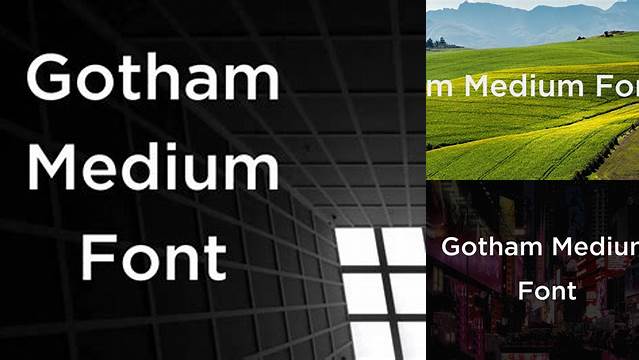
Let's dive into the world of fonts, specifically the ever-popular Gotham Medium, but with a twist – a Western flair! If you're on the hunt for that perfect blend of modern and rustic, you've come to the right place. This article will guide you through everything you need to know about finding and downloading Gotham Medium Western font for free, legally and safely. So, buckle up, font enthusiasts!
1. Understanding the Allure of Gotham Medium
Gotham Medium, guys, is more than just a font; it's a statement. Known for its clean, sans-serif design, it exudes a sense of modernity and readability that makes it a favorite for branding, websites, and print materials. Its versatility allows it to fit into various design aesthetics, from corporate to creative. But why is it so appealing? Well, its simplicity is its strength. The uniform stroke weight and geometric structure make it easy on the eyes, ensuring legibility even at smaller sizes. Plus, its wide availability and extensive character set mean it can handle almost any design task you throw at it. Its neutral appearance allows the content to shine, rather than overpowering it with excessive ornamentation. For designers, this means a reliable and adaptable tool that can be used across numerous projects. The font's design also lends itself well to digital platforms, where clarity is paramount. Its geometric shapes translate crisply on screens, avoiding the blurriness that can plague more intricate fonts. Gotham Medium is a true workhorse in the design world, providing a stable and attractive foundation for visual communication. It’s no wonder why so many brands and creatives turn to it as a go-to choice. In essence, it's a font that does its job exceptionally well, without drawing undue attention to itself, which is often the hallmark of excellent design.
2. What Makes a Font 'Western'?
Now, what exactly defines a “Western” font? Think old saloons, wanted posters, and the rugged charm of the Wild West. Western fonts typically feature strong, bold strokes, often with serifs that evoke a sense of history and tradition. They might include spurs, slabs, or distressed textures to add to the vintage feel. When we talk about a Gotham Medium Western font free download, we're looking for a variation that incorporates these Western elements while retaining the core readability and modern aesthetic of Gotham Medium. Combining these two styles can create a unique and eye-catching effect, perfect for projects that need a touch of both the old and the new. Imagine a tech startup with a Western-themed marketing campaign, or a modern restaurant wanting to evoke a sense of rustic charm. A Gotham Medium Western font could be the perfect solution. The challenge, however, is finding a version that is both well-designed and legally available for free. Many Western fonts are overly ornate or difficult to read, which defeats the purpose of using Gotham Medium in the first place. The ideal Western-inspired version would maintain Gotham's clarity while adding subtle Western details, such as slightly flared serifs or a subtly distressed texture. This balance is what makes a Western font truly effective, allowing it to convey a sense of history and character without sacrificing readability or modern appeal. Finding this balance is key to creating designs that are both visually striking and functionally sound.
5. Alternatives to Gotham Medium with a Western Vibe
Can't find a perfect Gotham Medium Western font free download? No worries! There are plenty of alternatives that capture the Western aesthetic while maintaining readability. Fonts like Arvo, Ranchers, and Playfair Display can give you a similar vibe. Arvo, for example, is a slab-serif font that provides a strong, sturdy feel, reminiscent of old Western signage. Ranchers, on the other hand, is a display font that embodies the spirit of the Wild West with its bold, decorative letterforms. Playfair Display offers a more elegant take on the Western style, with its high contrast and refined serifs. Experiment with different fonts to see what works best for your project. Consider pairing these fonts with other design elements, such as distressed textures, vintage illustrations, or sepia-toned color palettes, to further enhance the Western theme. Remember, the goal is to create a cohesive and visually appealing design that effectively communicates your message. Don't be afraid to try different combinations and approaches until you find the perfect fit. And don't forget to check the licensing terms of any fonts you use to ensure they are free for commercial use. By exploring these alternatives and incorporating them thoughtfully into your designs, you can achieve a Western-inspired look without compromising on readability or professionalism. This flexibility allows you to create unique and engaging designs that capture the essence of the Wild West while maintaining a modern sensibility. In the end, the key is to find the right balance between style and functionality.
6. Modifying Existing Fonts: A DIY Approach
If you're feeling adventurous, you can even try modifying an existing font to create your own Western-inspired version. This requires some technical skills and specialized software, but it can be a fun and rewarding project. Font editing software like FontForge or Glyphs allows you to adjust the letterforms, add serifs, and incorporate other Western elements. However, be sure to check the font's license before modifying it, as some licenses prohibit derivative works. If you're unsure, it's always best to contact the font designer or foundry for permission. Modifying a font can be a complex process, but it gives you complete control over the final result. You can customize every aspect of the font to perfectly match your vision, creating a truly unique and personalized typeface. Start by studying existing Western fonts to identify the key characteristics that define the style. Then, experiment with adding serifs, spurs, and other decorative elements to your chosen font. Consider using a distressed texture to give the font a vintage, weathered look. Remember to maintain the font's readability throughout the modification process. The goal is to enhance the Western aesthetic without sacrificing clarity or legibility. With patience and practice, you can create a custom Western font that is both visually appealing and functionally sound. This DIY approach allows you to express your creativity and develop a deeper understanding of typography. Ultimately, modifying fonts can be a valuable skill for any designer or font enthusiast.
7. The Importance of Readability in Font Choice
No matter how cool a font looks, readability should always be a top priority. A font that's difficult to read will frustrate your audience and undermine your message. When choosing a Gotham Medium Western font free download or any other font, consider factors like letter spacing, stroke weight, and contrast. A font with good readability will have ample space between letters and words, allowing the eye to easily distinguish each character. The stroke weight should be balanced, neither too thin nor too thick, to ensure clarity. And the contrast between the font and the background should be sufficient to prevent eye strain. Remember, your goal is to communicate effectively, not to show off your design skills. Choose a font that supports your message, rather than detracting from it. A readable font will help your audience engage with your content and understand your message more easily. This is particularly important for websites and other digital platforms, where users have a limited attention span. Make sure your font is legible on different screen sizes and resolutions. Test your font choices on various devices to ensure they look good across the board. By prioritizing readability, you can create a positive user experience and maximize the impact of your message. Ultimately, a readable font is a key ingredient in effective communication and successful design.
8. Using Font Pairing to Enhance Design
Font pairing is the art of combining two or more fonts to create a harmonious and visually appealing design. When using a Western-inspired font, consider pairing it with a clean, sans-serif font like the original Gotham Medium to balance the rustic aesthetic. A good font pairing will create contrast and hierarchy, guiding the viewer's eye and enhancing the overall design. The key is to choose fonts that complement each other, rather than compete. Look for fonts with similar x-heights and stroke weights to ensure a cohesive look. Consider using one font for headings and another for body text to create visual interest. Experiment with different combinations until you find a pairing that works well together. Online tools like FontPair and Typewolf can help you discover popular and effective font pairings. Remember, font pairing is not an exact science, but it is an important skill for any designer. By mastering the art of font pairing, you can create designs that are both visually stunning and functionally sound. A well-chosen font pairing can elevate your design and make it more engaging and memorable. So, take the time to experiment and explore different combinations until you find the perfect pairing for your project.
9. The Psychological Impact of Font Choices
Fonts have a subtle but powerful psychological impact on viewers. A Western font, for example, can evoke feelings of nostalgia, adventure, and ruggedness. The choice of font can influence how your message is perceived and remembered. Consider the emotions and associations you want to evoke when choosing a font. A serif font, like those often used in Western designs, can convey a sense of tradition and authority. A sans-serif font, on the other hand, can project a more modern and approachable image. Think about your target audience and the message you want to convey. Choose a font that aligns with your brand identity and resonates with your audience. Research has shown that different fonts can influence mood, attention, and even purchasing decisions. So, don't underestimate the psychological impact of your font choices. Take the time to consider the emotions and associations that different fonts evoke. By understanding the psychological impact of fonts, you can make more informed design decisions and create more effective communication.
10. Exploring Serif vs. Sans-Serif in Western Design
In the realm of Western design, the choice between serif and sans-serif fonts can significantly impact the overall aesthetic. Serif fonts, with their decorative strokes, often evoke a sense of tradition and history, aligning well with the vintage feel of the Wild West. Sans-serif fonts, known for their clean and modern appearance, can offer a contemporary twist on the Western theme. When seeking a Gotham Medium Western font free download, consider how the absence or presence of serifs contributes to the desired effect. A serif version might emphasize the rugged, time-worn aspect, while a sans-serif variation could bring a modern, minimalist touch. Ultimately, the decision depends on the specific project and the message it aims to convey. Experimenting with both serif and sans-serif options can reveal which best captures the essence of the design. The key is to strike a balance between authenticity and readability, ensuring the chosen font complements the overall visual narrative. Whether opting for the classic charm of serifs or the streamlined simplicity of sans-serifs, the font should enhance the design's impact and effectively communicate its intended message.
11. Finding Distressed Font Variations
Distressed fonts, with their weathered and worn appearance, perfectly capture the rugged spirit of the Wild West. When searching for a Gotham Medium Western font free download, consider looking for variations that incorporate a distressed texture. These fonts often feature subtle imperfections, such as faded edges, cracks, and uneven strokes, adding to their vintage charm. A distressed font can instantly evoke a sense of history and authenticity, making it ideal for projects that aim to replicate the look and feel of old Western signage or posters. However, it's essential to ensure the distressed effect doesn't compromise readability. The font should still be clear and legible, even with its weathered appearance. Experiment with different levels of distress to find the right balance between visual appeal and functionality. A well-chosen distressed font can add character and depth to your design, creating a unique and memorable impression.
12. The Role of Boldness in Western Typography
Boldness plays a crucial role in Western typography, often conveying strength, authority, and a sense of ruggedness. When exploring options for a Gotham Medium Western font free download, consider how the font's weight contributes to its overall impact. A bold version can command attention and create a strong visual presence, making it ideal for headings, titles, and other prominent elements. However, it's important to use boldness judiciously. Overusing bold fonts can create a cluttered and overwhelming design. Balance bold fonts with lighter weights to create contrast and visual hierarchy. Consider using a bold Western font for headings and a regular or light weight for body text. This will help guide the viewer's eye and make the design more readable. A well-chosen bold font can add power and impact to your design, but it's essential to use it strategically.
13. Adding Spurs and Slab Serifs to Gotham
To truly transform Gotham Medium into a Western-style font, consider adding spurs and slab serifs. Spurs are small, pointed projections that extend from the main strokes of a letter, while slab serifs are thick, block-like extensions. These elements are characteristic of many classic Western fonts and can instantly give Gotham Medium a more rustic and vintage feel. However, adding spurs and slab serifs requires some font editing skills and specialized software. You'll need to use a font editor like FontForge or Glyphs to modify the letterforms and add these details. Before you start, make sure you have the legal right to modify the font. Some font licenses prohibit derivative works. If you're unsure, contact the font designer or foundry for permission. Adding spurs and slab serifs can be a time-consuming process, but it can be a rewarding way to create a unique and personalized Western font. Experiment with different styles and placements to find the look that best suits your project. A well-executed addition of spurs and slab serifs can transform Gotham Medium into a truly authentic Western font.
14. Exploring Letter Spacing and Kerning Adjustments
Letter spacing and kerning are essential aspects of typography that can significantly impact the readability and visual appeal of a font. Letter spacing refers to the overall space between letters, while kerning refers to the space between specific pairs of letters. When working with a Gotham Medium Western font free download, pay attention to these details and make adjustments as needed. In general, Western fonts tend to have slightly wider letter spacing than modern fonts, which can enhance their rustic and vintage feel. However, too much letter spacing can make the font look disjointed and difficult to read. Kerning is particularly important for Western fonts, as the addition of serifs and other decorative elements can create uneven spacing between certain letter pairs. Use kerning to fine-tune the spacing and ensure a consistent and harmonious appearance. Experiment with different letter spacing and kerning settings to find the optimal balance for your font. A well-kerned and spaced font will be both visually appealing and easy to read.
15. Color Palettes That Complement Western Fonts
Choosing the right color palette is crucial for complementing Western fonts and creating a cohesive design. Earthy tones, such as browns, tans, and creams, are classic choices that evoke the natural landscapes of the Wild West. Other popular options include reds, oranges, and yellows, which can represent the warmth and energy of the sun. When selecting colors, consider the overall mood and message you want to convey. Muted tones can create a sense of nostalgia and history, while brighter colors can add a touch of modernity. Experiment with different color combinations to find the perfect palette for your project. Consider using a color wheel or online color palette generator for inspiration. A well-chosen color palette can enhance the visual impact of your Western font and create a memorable design.
16. Incorporating Vintage Textures and Effects
To further enhance the Western aesthetic of your font, consider incorporating vintage textures and effects. These can add a sense of age and authenticity, making your design look like it came straight out of the Wild West. Popular options include distressed textures, grunge effects, and aged paper backgrounds. You can find these textures and effects online or create your own using image editing software. When incorporating vintage textures and effects, be careful not to overdo it. Too much can make your design look cluttered and overwhelming. Use these elements sparingly and strategically to add subtle character and depth. Experiment with different blending modes and opacity settings to achieve the desired effect. A well-executed application of vintage textures and effects can transform your font into a truly authentic Western masterpiece.
17. Finding Inspiration from Old Western Signage
One of the best ways to get inspiration for your Western font is to study old Western signage. Look at photos of vintage saloons, general stores, and other businesses from the Wild West. Pay attention to the fonts, colors, and design elements used in these signs. Notice the use of bold fonts, slab serifs, and distressed textures. Take note of the color palettes and the overall style of the signage. Use this inspiration to guide your own font choices and design decisions. You can find many examples of old Western signage online or in historical archives. Visit museums and historical sites to see these signs in person. By studying these examples, you can gain a deeper understanding of the Western aesthetic and create a more authentic and compelling design.
18. Using Western Fonts in Logo Design
Western fonts can be a great choice for logo design, especially for businesses that want to convey a sense of history, tradition, or ruggedness. However, it's important to use Western fonts carefully and strategically. Consider your target audience and the message you want to convey. Choose a font that aligns with your brand identity and resonates with your audience. Keep your logo simple and easy to read. Avoid using too many fonts or design elements. Make sure your logo is scalable and looks good at different sizes. Test your logo on different backgrounds and in different colors. Get feedback from others to see what they think. A well-designed logo using a Western font can be a powerful way to communicate your brand's values and create a lasting impression.
19. Optimizing Western Fonts for Web Use
When using Western fonts on the web, it's important to optimize them for performance and readability. Web fonts can slow down your website if they're not properly optimized. Use a font format that's compatible with all major browsers, such as WOFF or WOFF2. Compress your font files to reduce their size. Use a content delivery network (CDN) to serve your fonts from a server that's close to your users. Use font-display: swap to prevent your website from blocking while the font is loading. Test your fonts on different browsers and devices to make sure they look good. By optimizing your Western fonts for web use, you can ensure that your website is fast, readable, and visually appealing.
20. Mobile Considerations for Western Typography
When designing for mobile devices, it's important to consider the limitations of smaller screens and the challenges of readability. Western fonts, with their often intricate details and heavier weights, can sometimes be difficult to read on mobile devices. Choose fonts that are clear and legible, even at small sizes. Use a font size that's large enough to be easily read on a mobile screen. Consider using a lighter font weight to improve readability. Make sure your fonts are properly optimized for web use to prevent slow loading times. Test your designs on different mobile devices to make sure they look good. By taking these mobile considerations into account, you can ensure that your Western typography is effective and visually appealing on any device.
21. The Future of Western Font Design
The future of Western font design is likely to be a blend of tradition and innovation. We can expect to see new and creative interpretations of classic Western styles, as well as the integration of modern design elements. Designers may experiment with new technologies and techniques to create unique and visually stunning Western fonts. We may also see a greater emphasis on accessibility and readability, ensuring that Western fonts are usable in a variety of contexts. The future of Western font design is bright, and we can look forward to seeing many exciting new developments in the years to come.
22. Combining Gotham with Other Western Elements
Even if a direct Gotham Medium Western font free download proves elusive, clever design can bridge the gap. Imagine pairing the standard Gotham Medium with carefully chosen Western-themed graphical elements. Think subtle rope borders, distressed textures layered behind text, or small, strategically placed spurs or stars. The key is subtlety. Overdoing the Western theme can make the design feel cheesy or outdated. Instead, aim for a refined blend where Gotham's modernity enhances the rustic charm of the Western elements. This approach allows for greater control over the final aesthetic, ensuring a unique and balanced design.
23. Creating a Western Feel Without a Specific Font
Sometimes, the best way to achieve a Western feel isn't through the font itself, but through the overall design. Think about the layout, color palette, and imagery. A vintage-inspired color scheme, such as browns, creams, and faded reds, can immediately evoke a Western vibe. Using sepia-toned photos or illustrations can further enhance this effect. Consider a layout that mimics old wanted posters or saloon signs. By focusing on these elements, you can create a strong Western aesthetic even with a relatively neutral font like Gotham Medium. This approach requires a more holistic design strategy, but it can be incredibly effective.
24. The Influence of Spaghetti Westerns on Font Choices
Spaghetti Westerns, with their distinctive visual style, have had a significant influence on Western font choices. The gritty, sun-baked landscapes and the exaggerated characters of these films have inspired a range of fonts that capture the essence of the genre. Think bold, slab-serif fonts with a slightly distressed texture. These fonts evoke the feeling of old wanted posters and saloon signs, transporting the viewer to the world of Spaghetti Westerns. When choosing a Western font, consider the visual style of these films and how it can inform your design choices. By drawing inspiration from Spaghetti Westerns, you can create a design that is both authentic and visually compelling.
25. Where to Find Reputable Font Foundries
Finding reputable font foundries is crucial for ensuring the quality and legality of your fonts. Reputable foundries offer a wide selection of high-quality fonts, along with detailed licensing information and excellent customer support. Some popular font foundries include MyFonts, Adobe Fonts, and FontShop. These foundries have a long history of producing high-quality fonts and are trusted by designers around the world. When choosing a font foundry, consider their reputation, the quality of their fonts, and the licensing terms they offer. A reputable font foundry will provide you with the peace of mind knowing that you're using a legal and well-designed font.
26. Understanding Font Licensing Agreements
Before using any font, it's crucial to understand the font licensing agreement. This agreement outlines the terms and conditions under which you can use the font. Different fonts have different licensing agreements, so it's important to read the agreement carefully before using the font in any project. Some fonts are free for personal use but require a commercial license for business purposes. Other fonts have restrictions on how they can be modified or embedded in software. Violating a font licensing agreement can lead to legal consequences, so it's important to be aware of the terms and conditions. If you're unsure about any aspect of the licensing agreement, contact the font designer or foundry for clarification. Understanding font licensing agreements is essential for protecting yourself and respecting the rights of font designers.
27. The Importance of Testing Fonts Before Use
Testing fonts before use is crucial for ensuring they look good and function properly in your designs. Different fonts can render differently on different devices and browsers, so it's important to test them in a variety of environments. Test your fonts on different screen sizes and resolutions. Test them in different browsers, such as Chrome, Firefox, and Safari. Test them on different operating systems, such as Windows, macOS, and iOS. Pay attention to the font's readability, spacing, and overall appearance. Make sure the font is compatible with your design software and doesn't cause any errors. By testing your fonts before use, you can avoid potential problems and ensure that your designs look their best.
28. Common Mistakes to Avoid When Using Western Fonts
Using Western fonts effectively requires avoiding some common mistakes. Overusing Western fonts can make your design feel cheesy or outdated. Choose a Western font that is appropriate for your project and target audience. Don't use too many different fonts in your design. Stick to a limited number of fonts to create a cohesive and visually appealing design. Make sure your Western font is readable. Choose a font that is clear and legible, even at small sizes. Don't use a Western font for body text. Use a more readable font for body text and reserve the Western font for headings and titles. By avoiding these common mistakes, you can use Western fonts effectively and create a design that is both authentic and visually compelling.
29. Alternative Design Software for Font Manipulation
While Adobe products are industry standards, alternative design software options exist for font manipulation, some even offering free versions or trials. FontForge, an open-source font editor, is a powerful tool for creating and modifying fonts. Glyphs is another popular option, known for its user-friendly interface and advanced features. These programs allow for detailed adjustments to letterforms, kerning, and other aspects of typography. Exploring these alternatives can be a cost-effective way to achieve your design goals, especially if you're on a budget or just starting out. Each software has its own strengths and weaknesses, so experimenting with different options can help you find the perfect fit for your needs.
30. Staying Updated on Font Trends and Resources
Staying updated on font trends and resources is essential for any designer or font enthusiast. The world of typography is constantly evolving, with new fonts and design styles emerging all the time. Follow font foundries and designers on social media to stay informed about their latest releases. Subscribe to newsletters and blogs that cover typography and design trends. Attend design conferences and workshops to learn from industry experts. Explore online font libraries and resources to discover new and interesting fonts. By staying updated on font trends and resources, you can ensure that your designs are fresh, relevant, and visually appealing.